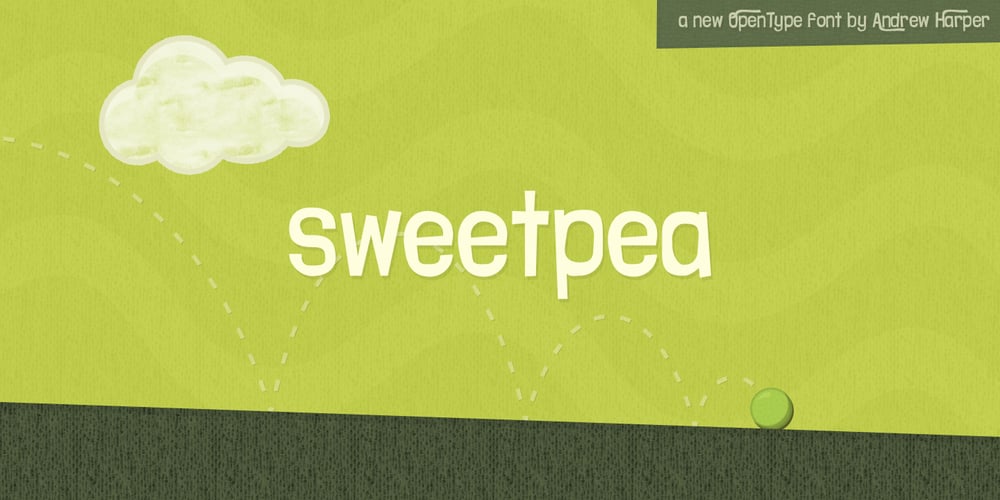
Sweetpea Font Family was designed by Andrew Harper and published by Andrew Harper Fonts. Sweetpea contains 1 styles and family package options. Sweetpea is a new OpenType font by Andrew Harper that includes a ton of features: contextual alternates, stylistic variations, regular/discretionary ligatures, fractions, ordinals, and swashes. Over 600 glyphs to choose from, including fractions, Greek symbols, music accidentals, Roman numerals, arrows, and mathematical notation.